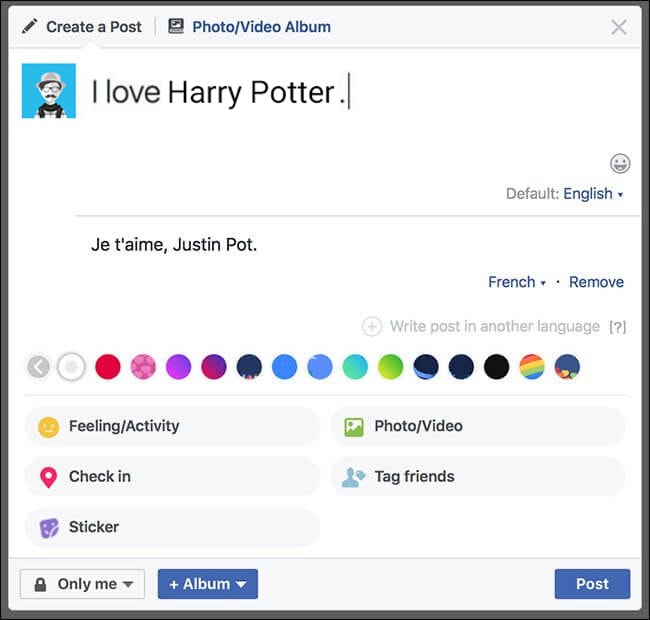
How Do You Do Different Fonts On Facebook. The serif style provides more stylistic contrast. To use it, just type or paste some words into the top box, and we'll generate font styles in the box below which can be copied and pasted to your facebook.
Once you type the text in the box, a wide variety of options appears underneath. Enter the text you want bolded into the your text box. This website helps you to change your font style on facebook.
How To Change The Font On Facebook 1.
Then click the copy button next to the bold style you want to use. Once you are done typing, your typed text appears in all the fonts that the website has to offer. You already work on photoshops to design different things.
You Can Also Combine Some Styles Together, Such As Bold + Italic, Bold + Cursive, And Even Bold, Italic +.
Then, click and drag your mouse over the text to highlight it. The sans serif style matches facebook's font the best. You will then be given plenty of choices to make the text bold, cursive, italic, underline, strikethrough, and many other fancy text styles.
You Can Easily Format Text In Facebook Messenger With The Right Characters Or Symbols.
Click “show” and then choose the format you like best. How to change text/fonts on facebook? You have to go to this website, there you will find many tabs along with the styles of their font mentioned above it.
However, The Effects Only Show Up.
How to bold text in facebook via yaytext (step by step) 1. In the text bar on the unicode text converter website, type in or copy and paste your copy that you want to format. Select one of the bold font, copy it, paste it.
Navigate To Facebook Fonts, And Click It To Visit That Page.
The tool will allow you to write the text you want to bold. Paste it as plain text. As you've probably noticed by now, this translator lets you change your font using unicode symbols.